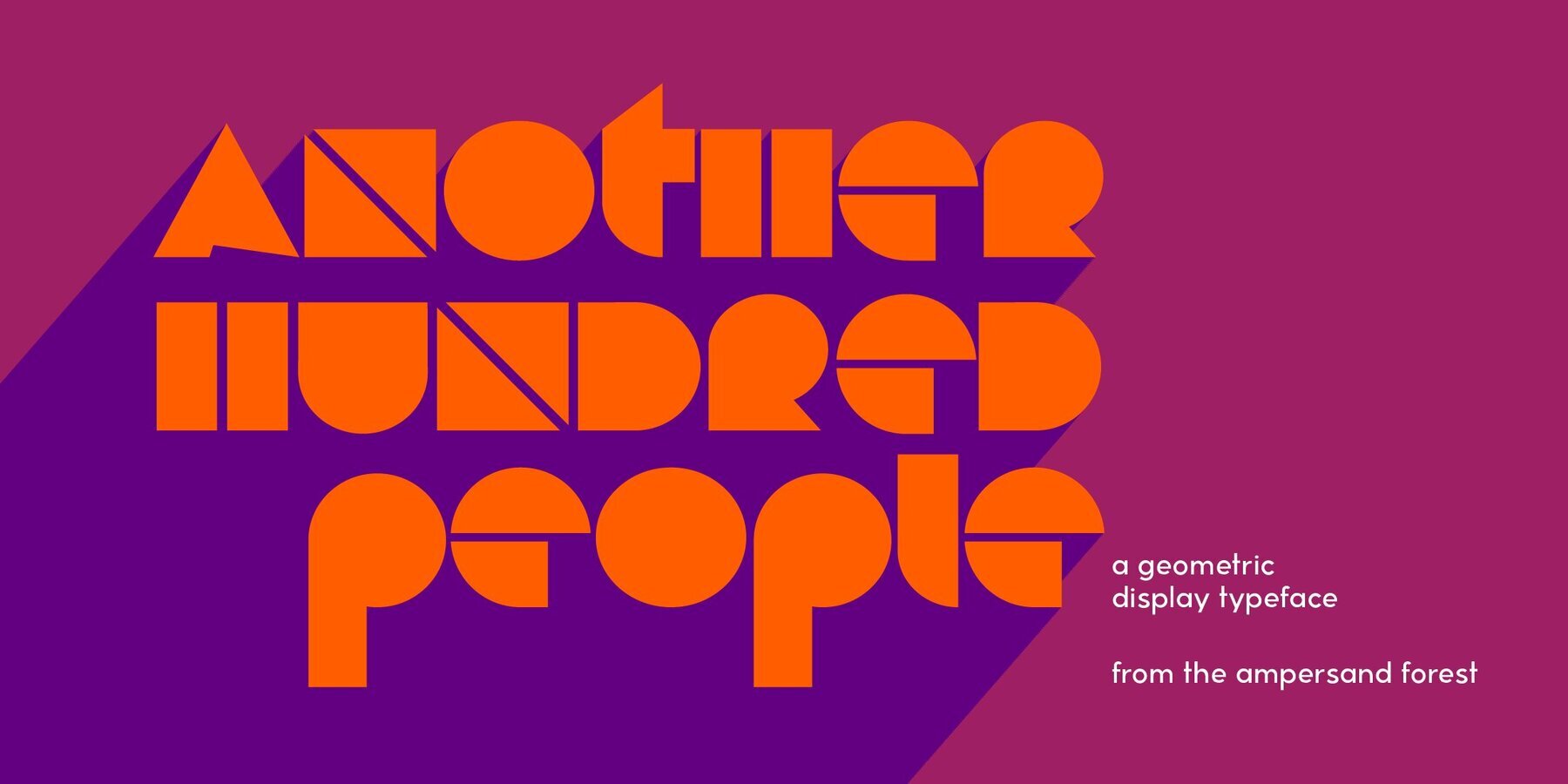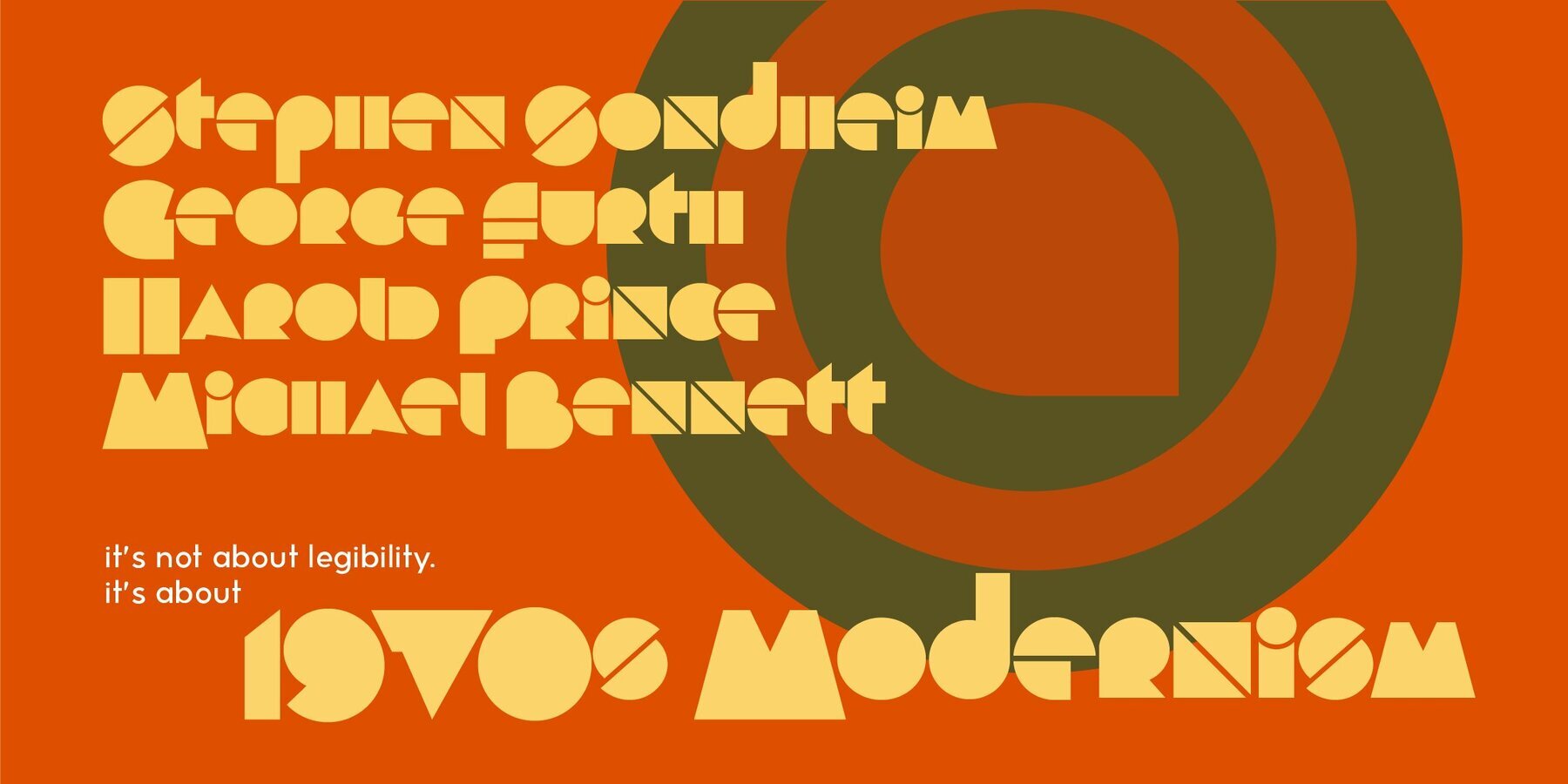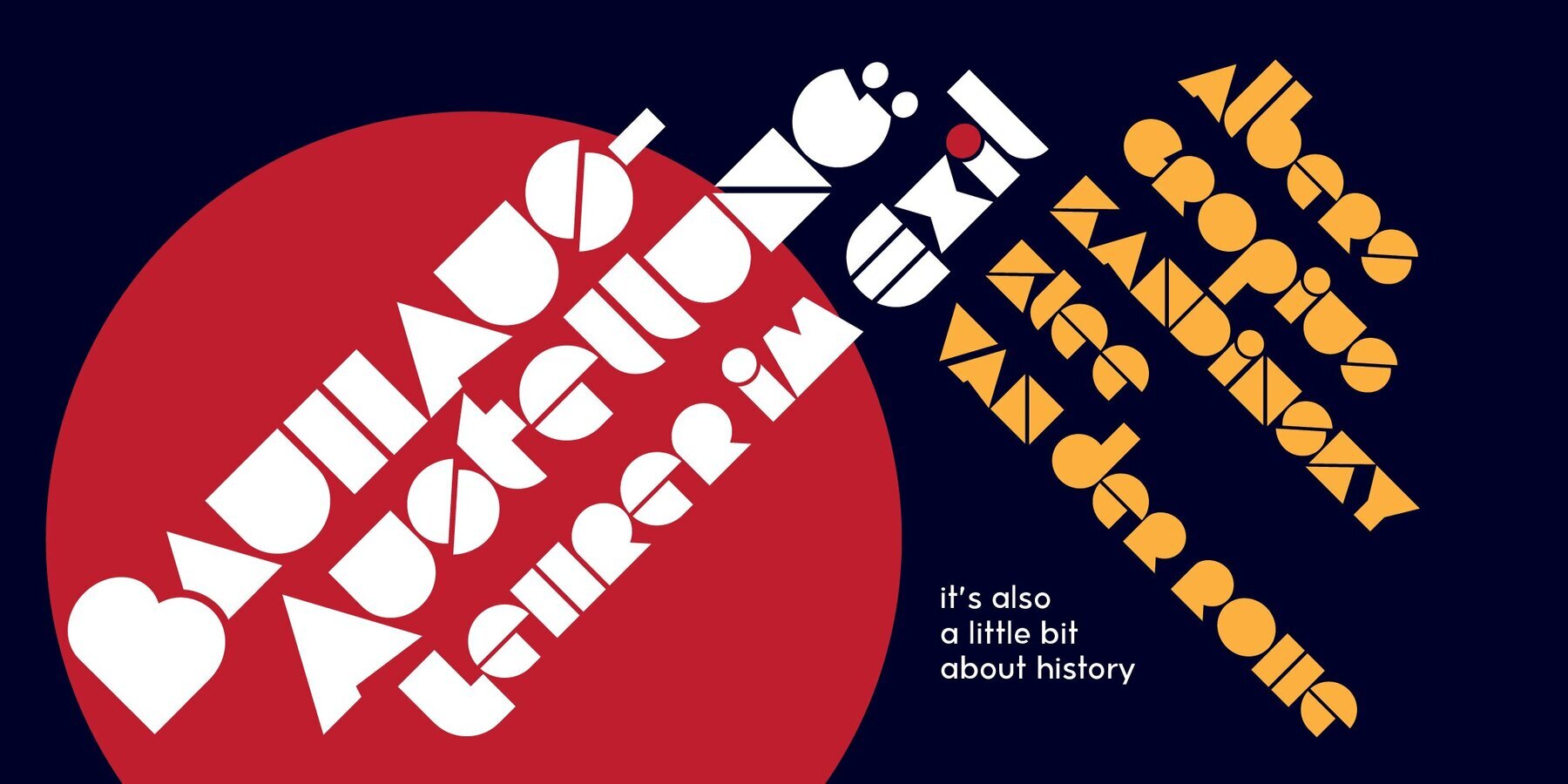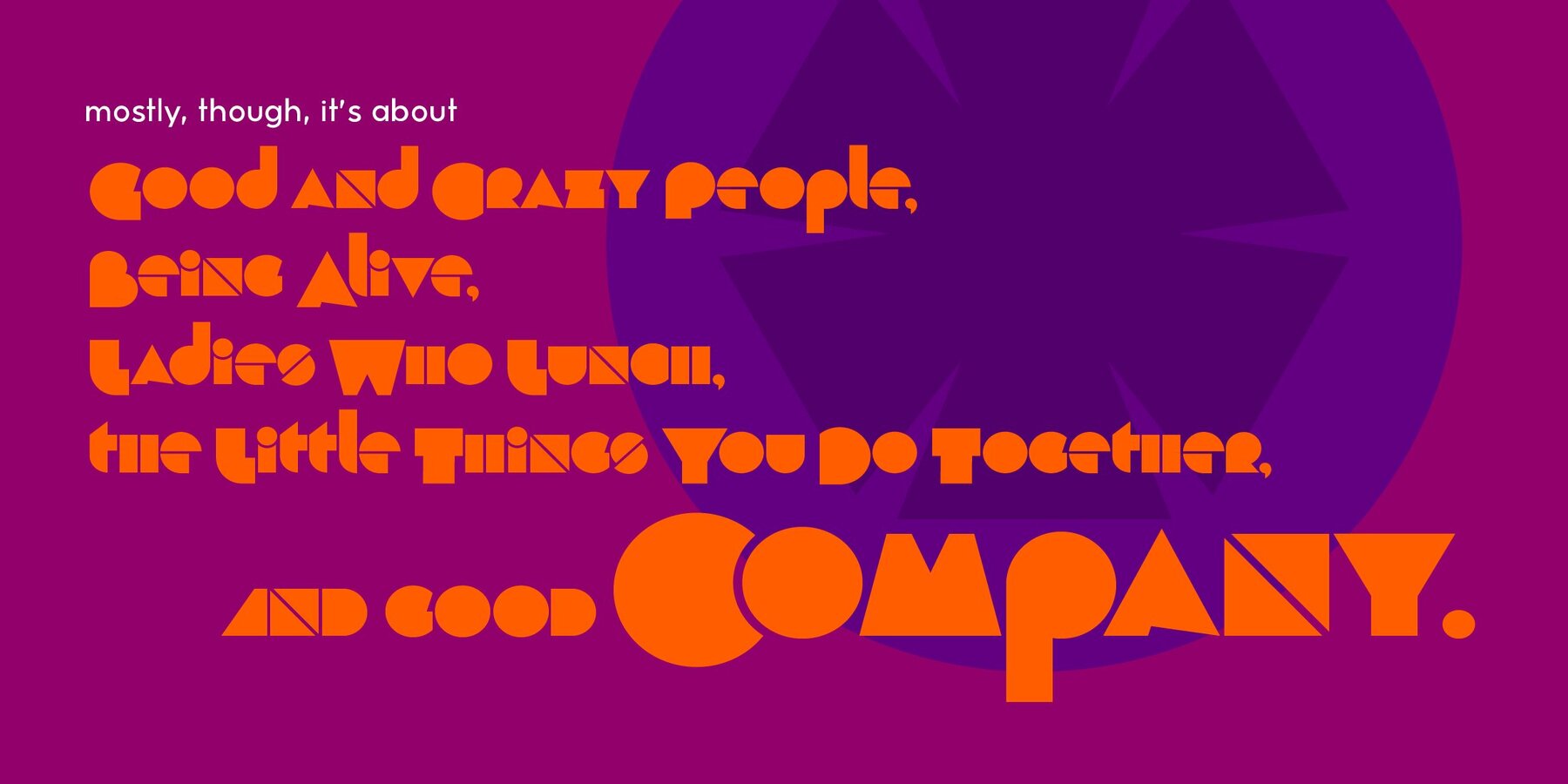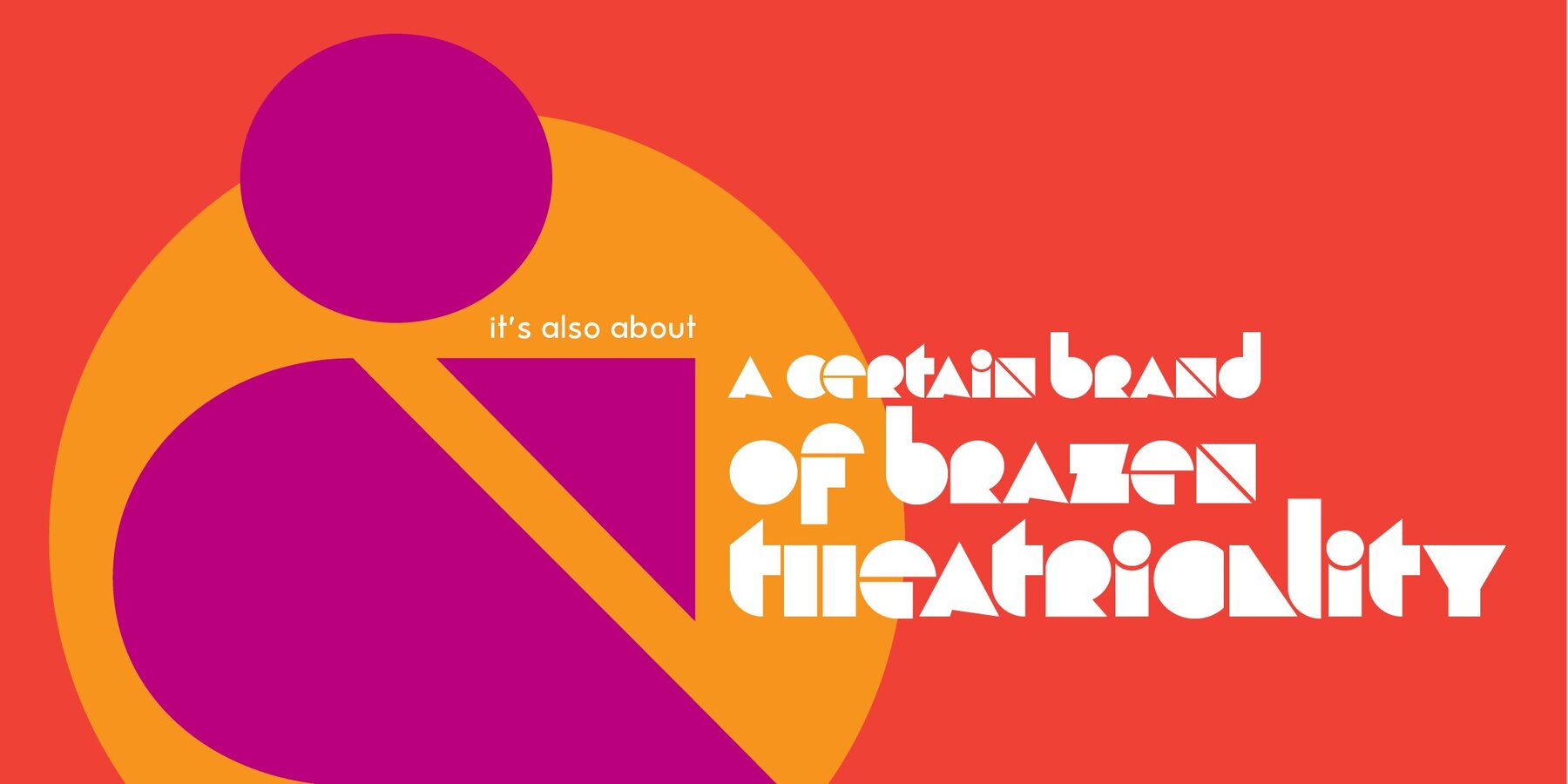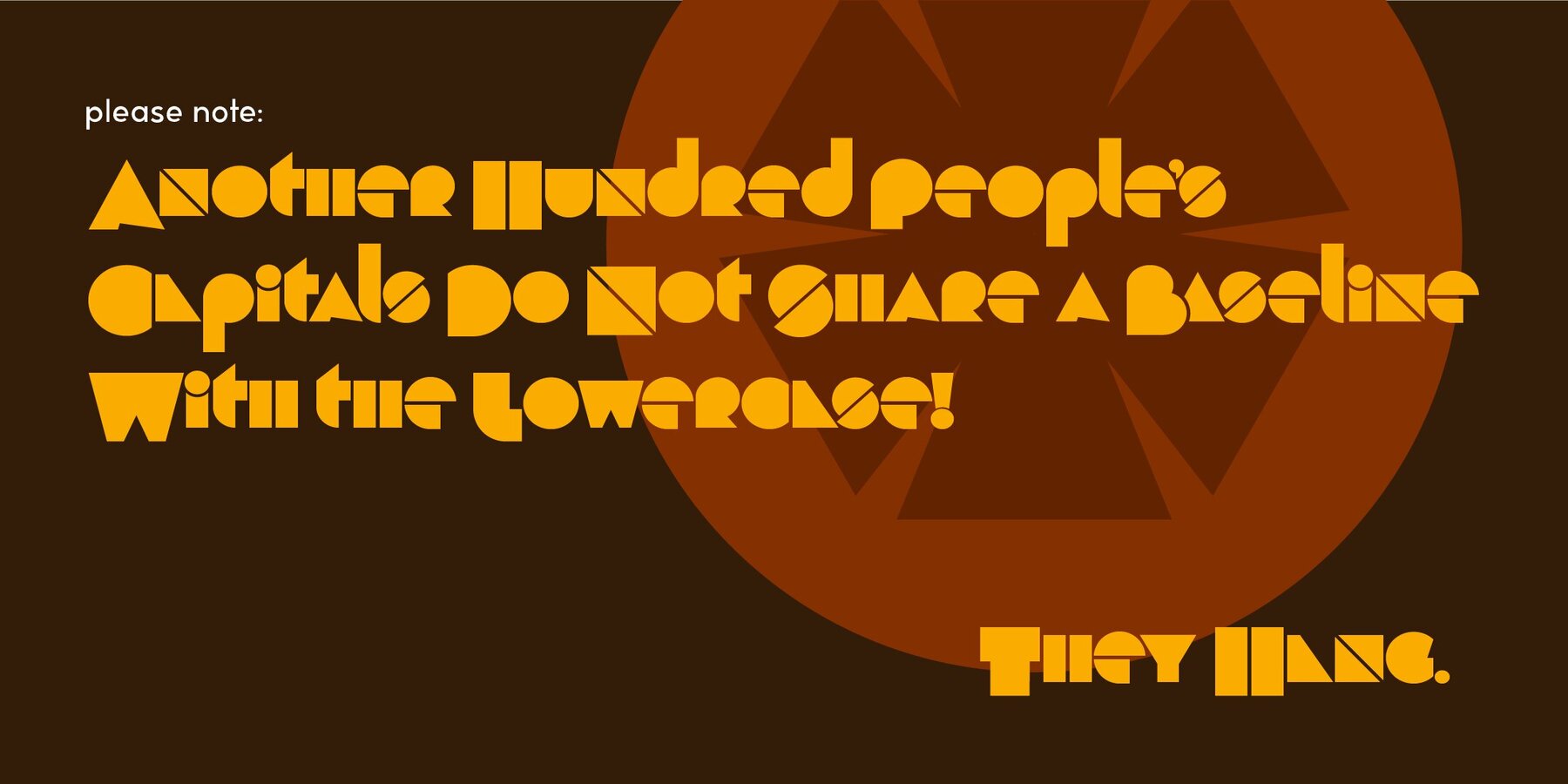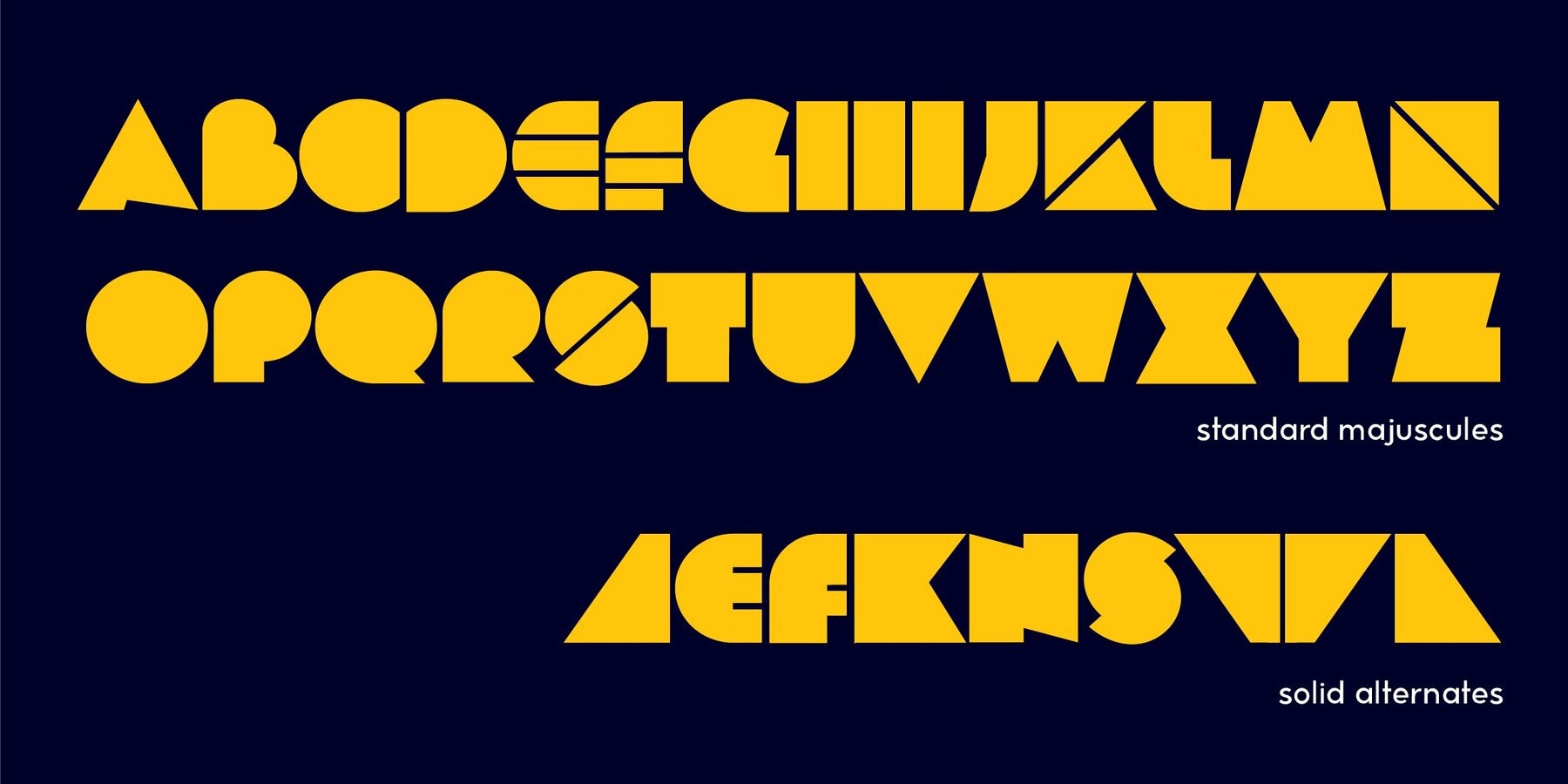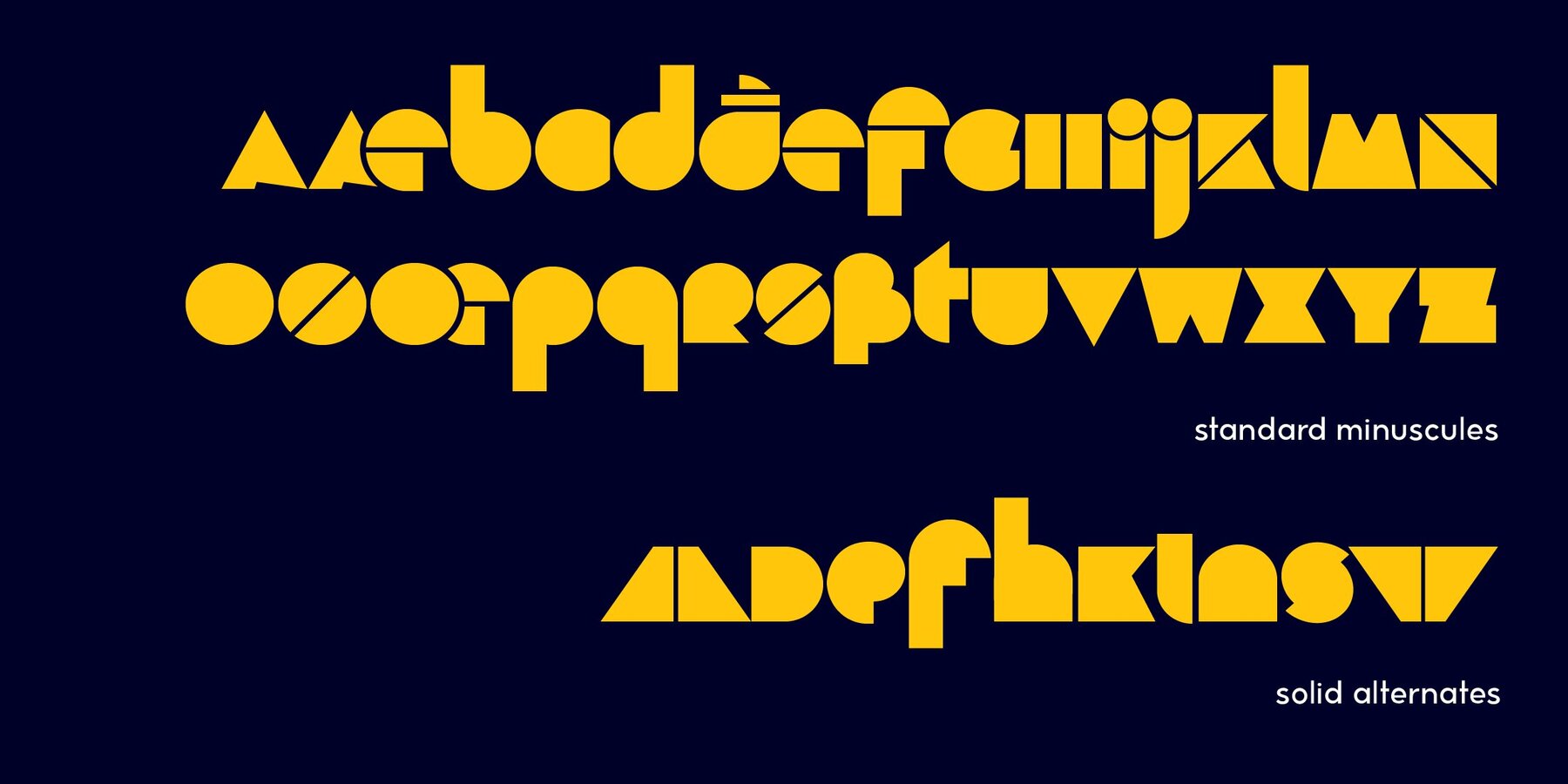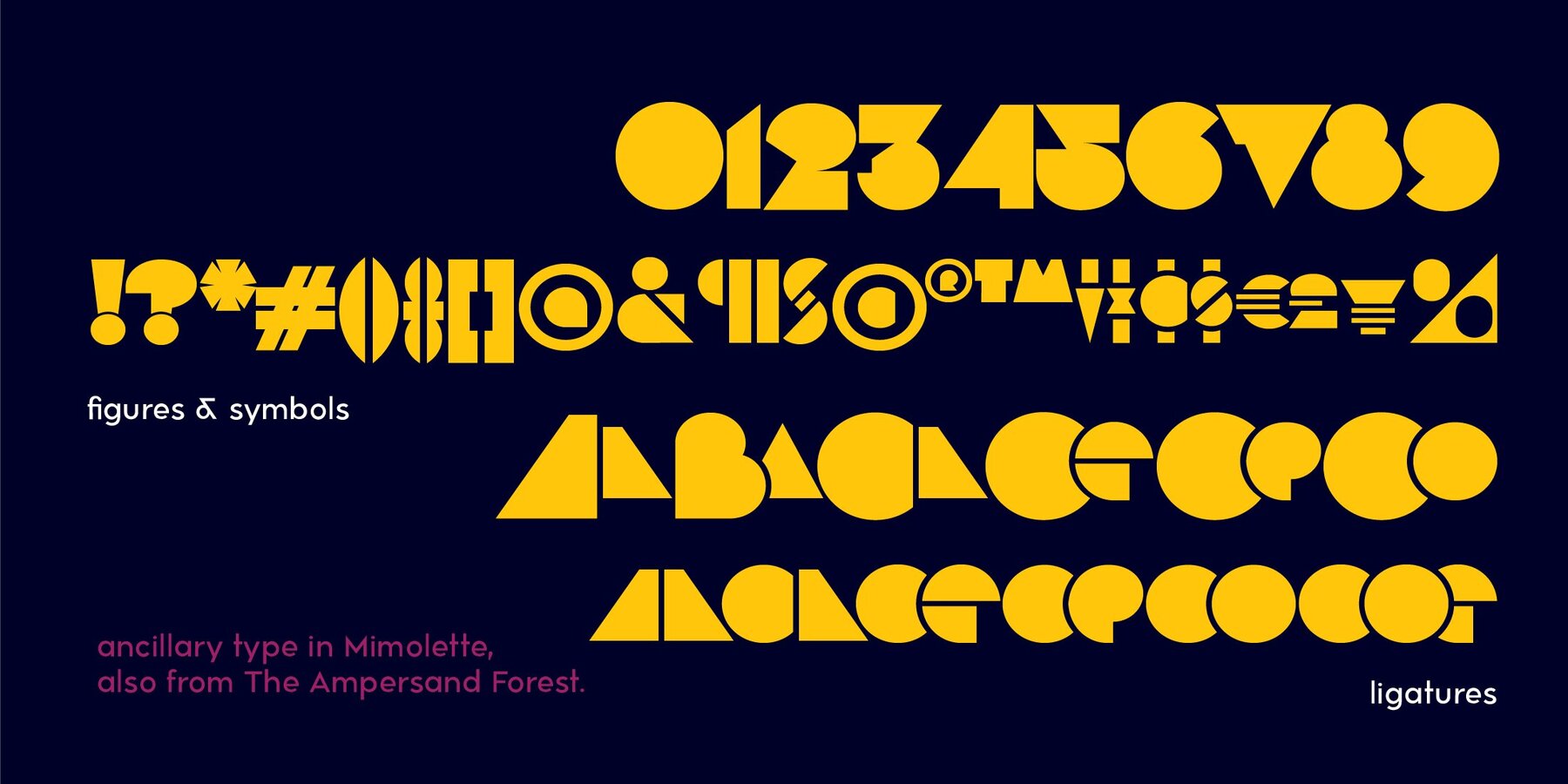
Another Hundred People Font
Another Hundred People Regular
It ain’t all about legibility, folks! Inspired by the iconic modernist letterforms in the poster for Stephen Sondheim's 1972 musical Company, Another Hundred People is a gleeful set of solid geometric glyphs as though a set of Colorforms decided to express itself in words.
In addition to its lowercase and caps (which don't share a baseline with the lowercase, but hang below it), Another Hundred People has solid alternates (for those who don't like the divided letterforms) and overlapping ligatures!